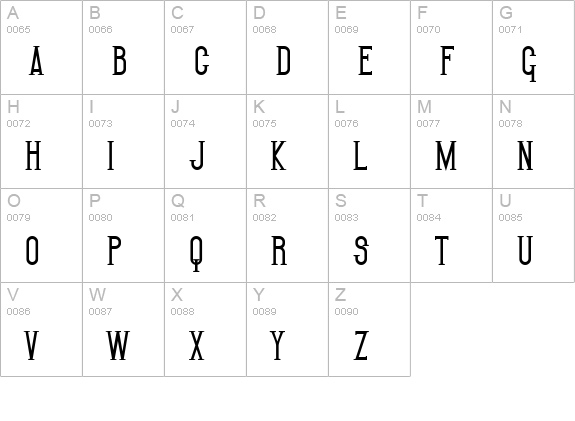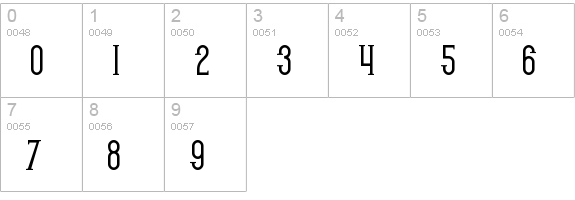
SF Gothican Bold Font Details
SF Gothican Bold is a strong, high-contrast variant in the SF typeface family \xE2\x80\x94 well suited to headlines, attention-grabbing titles, and strong calls-to-action.
Introducing SF Gothican Bold - a breathtaking display font that seamlessly combines the elegance of Gothic lettering with a bold and modern twist. With its intricate and captivating design, SF Gothican Bold stands out among the crowd, making it the perfect choice for projects that demand attention. This font exudes a sense of mystery and sophistication, transporting your designs to a realm where tradition meets contemporary aesthetics. Its meticulously crafted letterforms create a visual feast for the eyes, with sharp edges and bold strokes that command attention and leave a lasting impression. SF Gothican Bold is not only visually stunning, but also highly versatile. Whether you're designing a logo, branding materials, or even a poster for a gothic-themed event, this font has the power to elevate your designs from ordinary to extraordinary. But that's not all - SF Gothican Bold is also free! Yes, you read that right. This exceptional font is freely available to download at FontsMarket.com, allowing you to bring its enchanting allure to your projects without any cost. This means you can unleash your creativity and experiment with this remarkable font without any limitations. So why wait? Indulge in the captivating elegance of SF Gothican Bold and take your designs to new heights. Download this incredible font for free at FontsMarket.com and let your imagination run wild. Embrace the power of gothic aesthetics and make a bold statement with SF Gothican Bold - a font that is as mesmerizing as it is free.